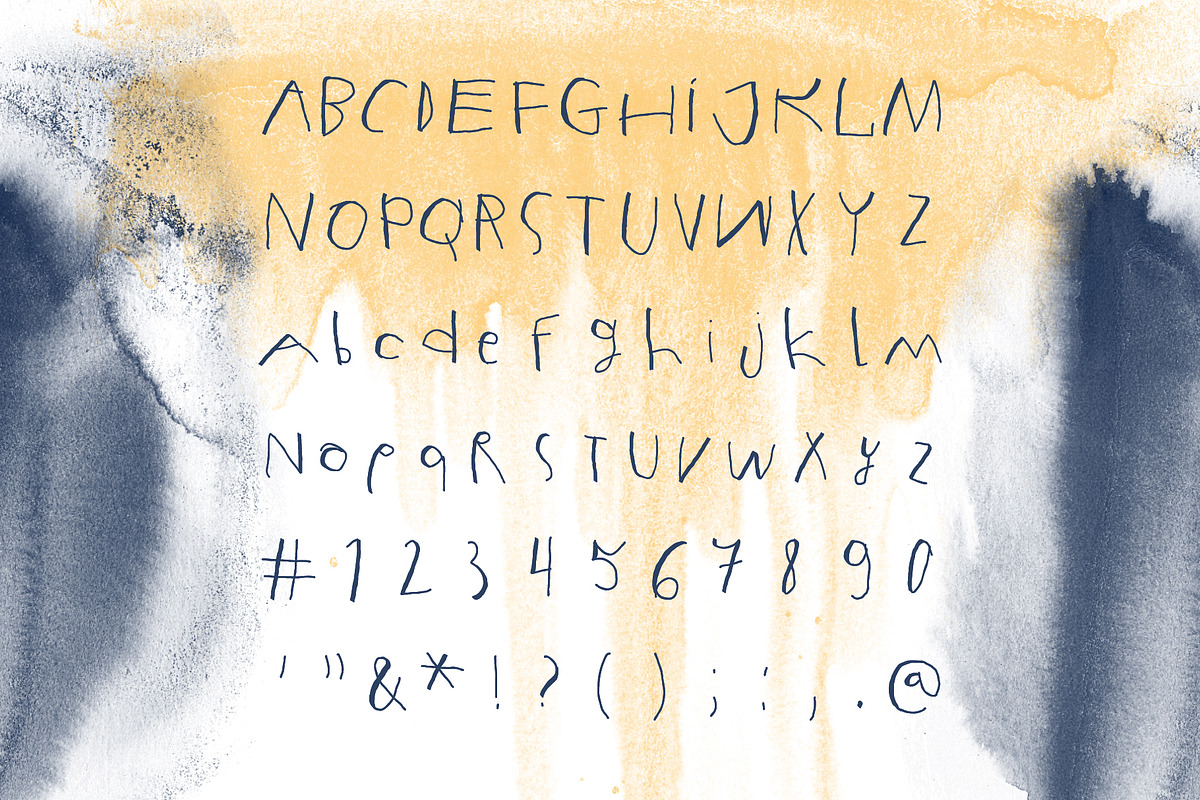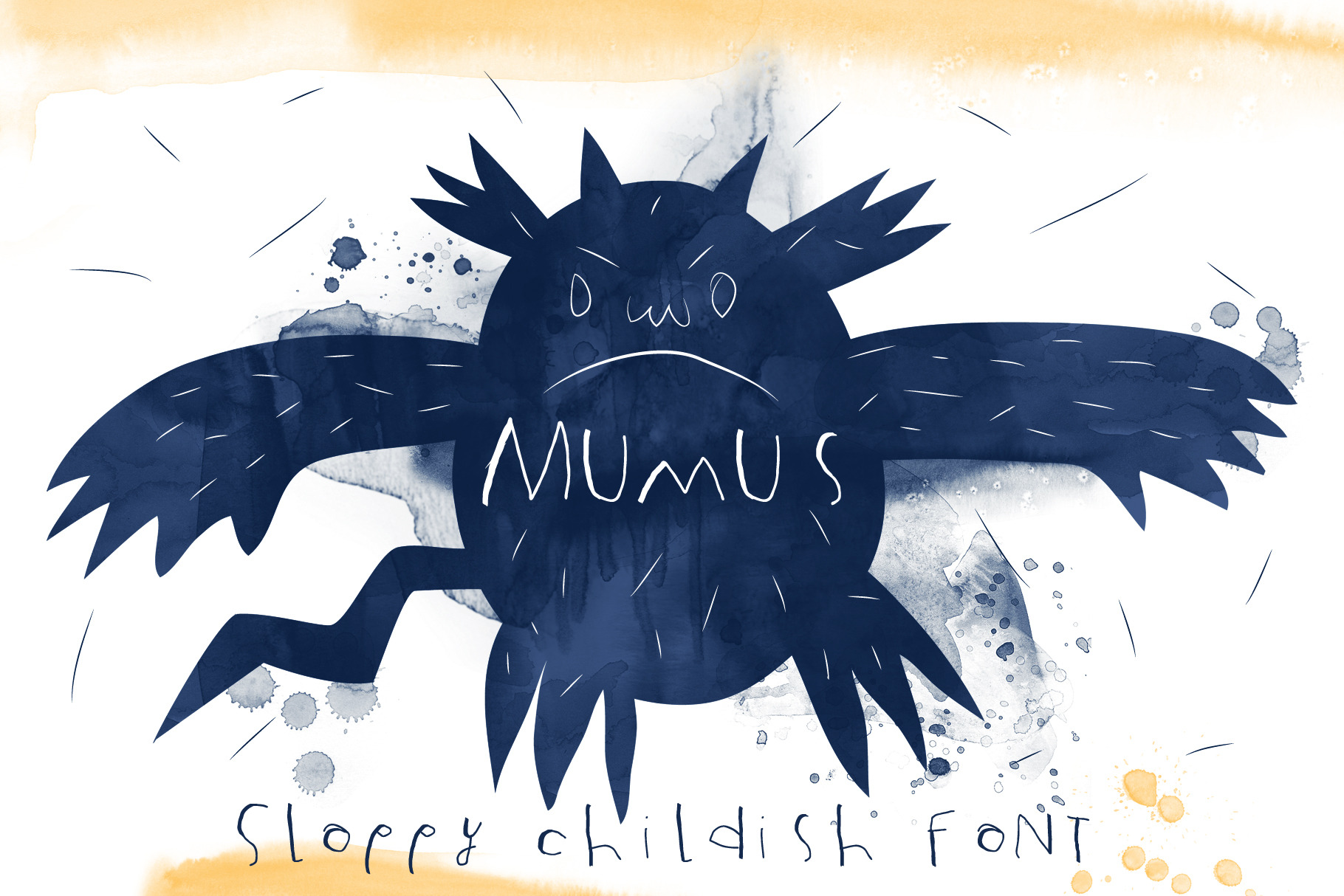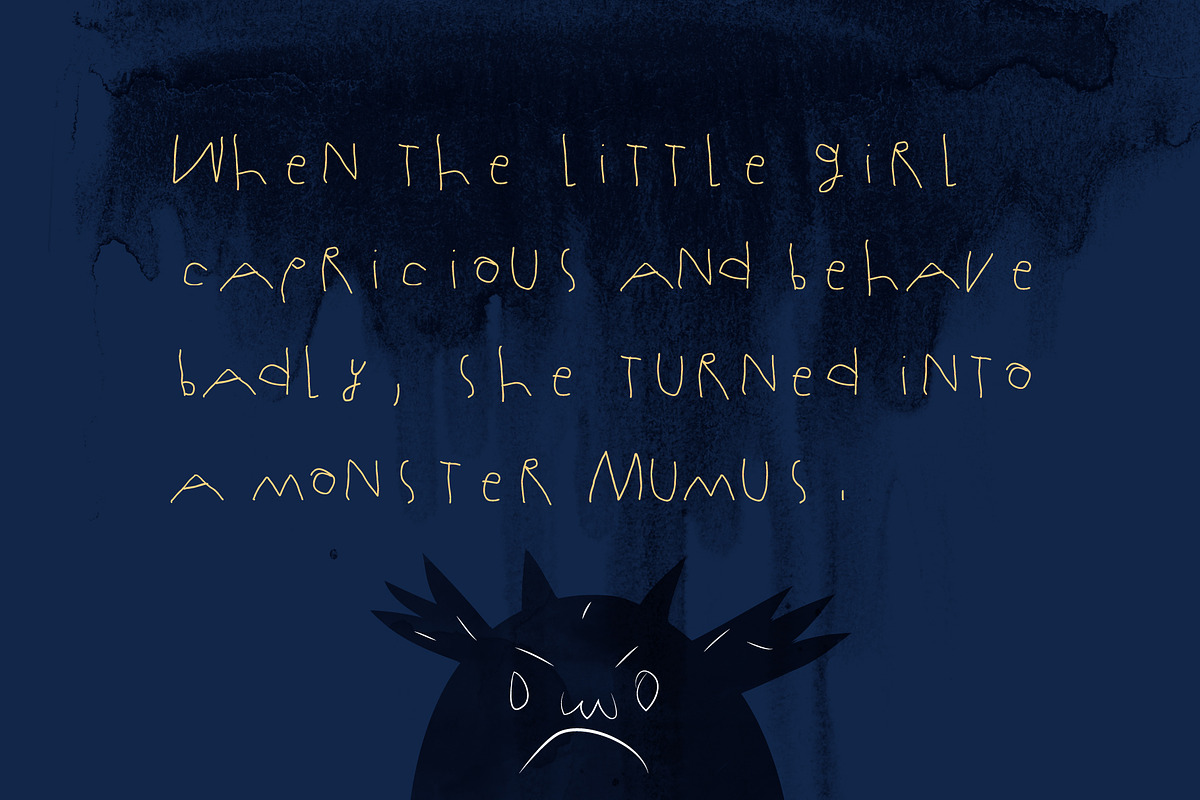
Sloppy childish font written by hand
A naive kind childish font written by hand for the decoration of children's books, postcards, handmade goods. otf, ttf.